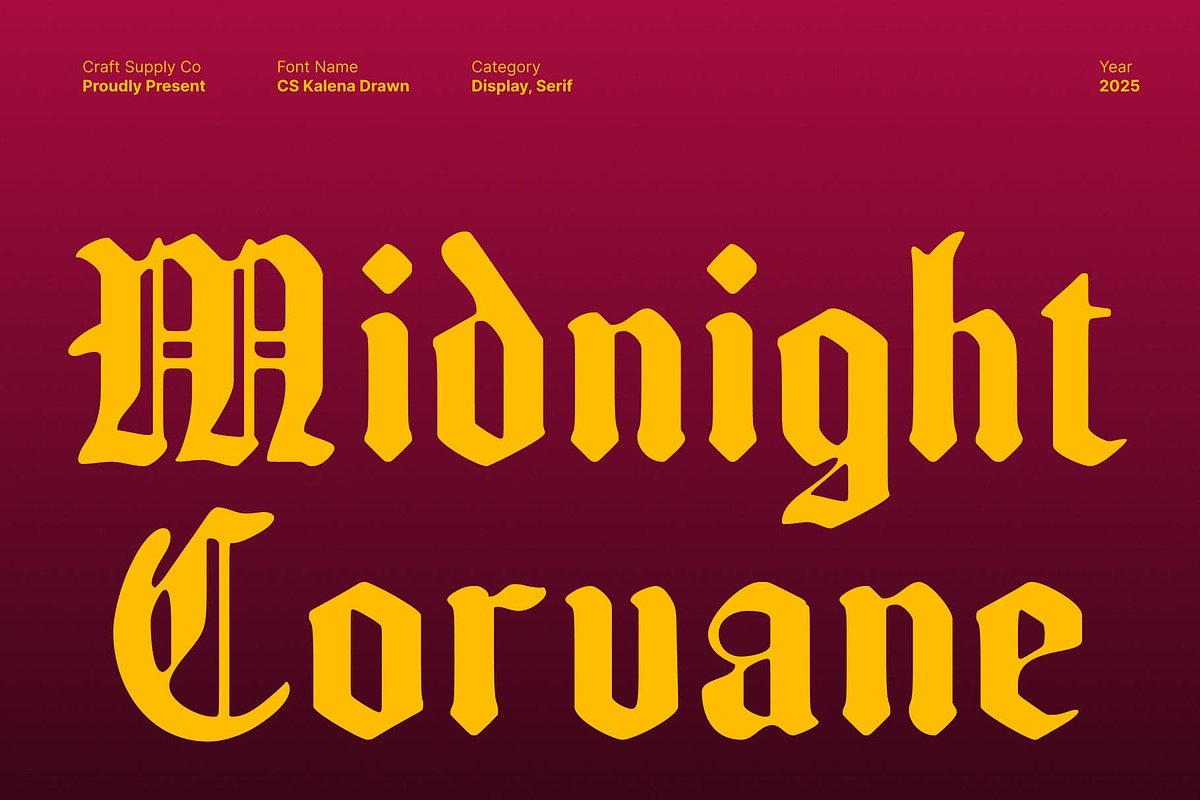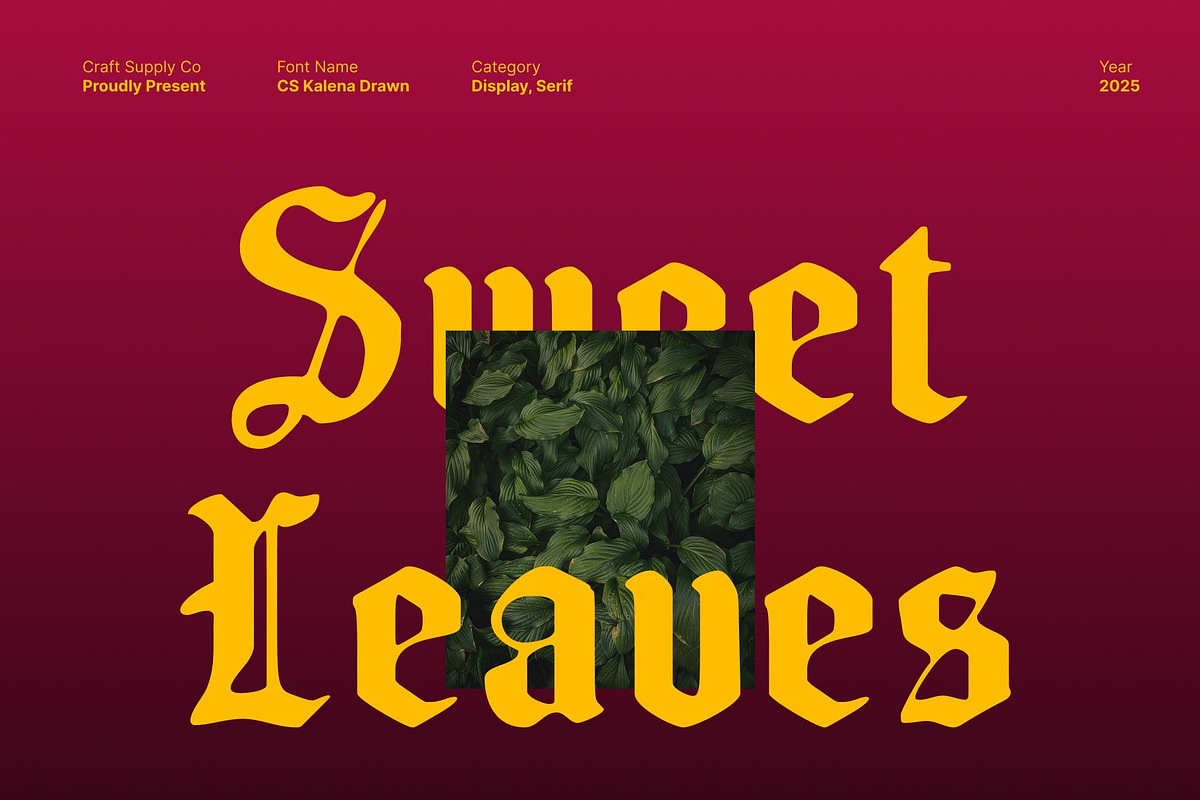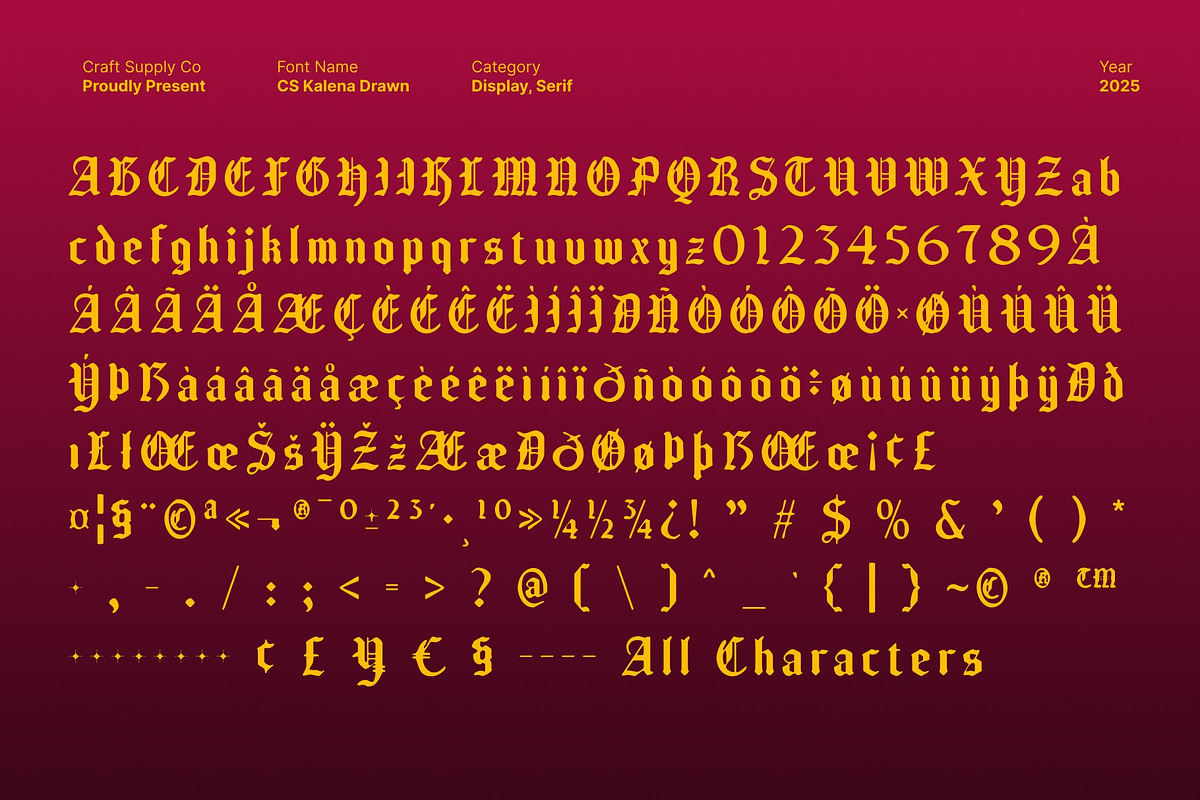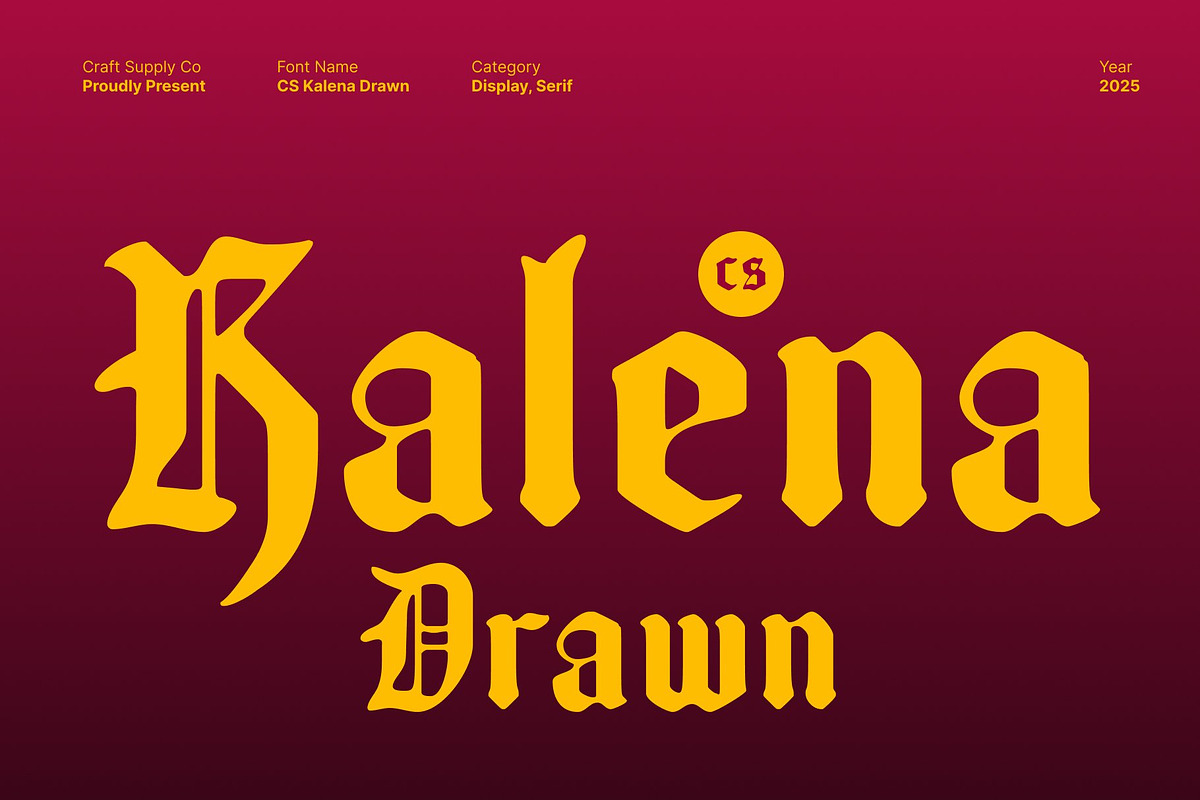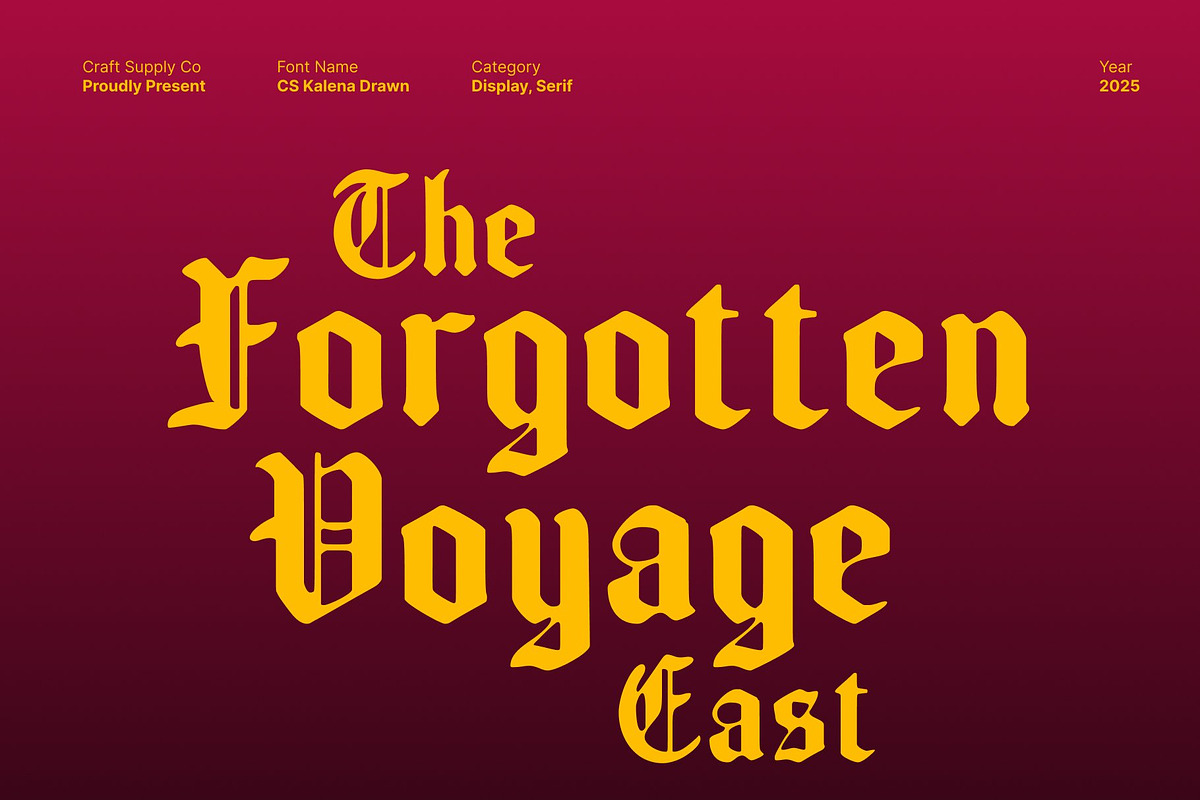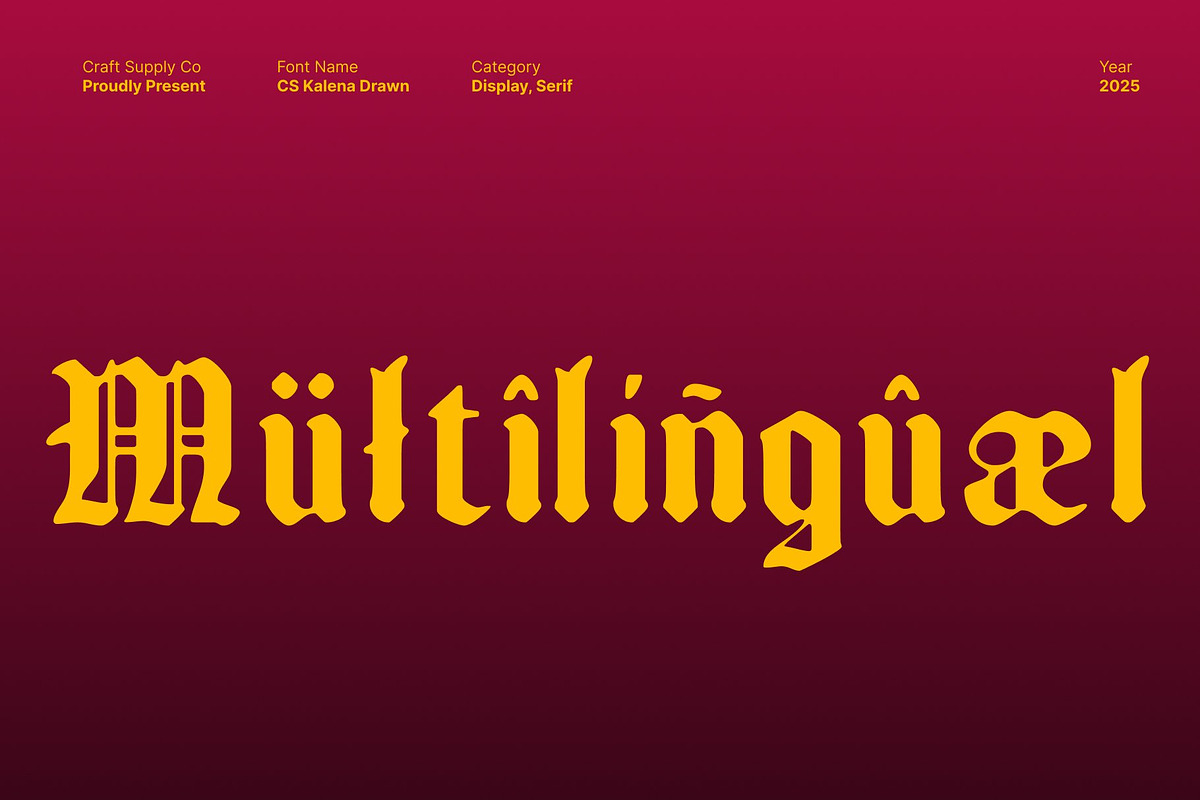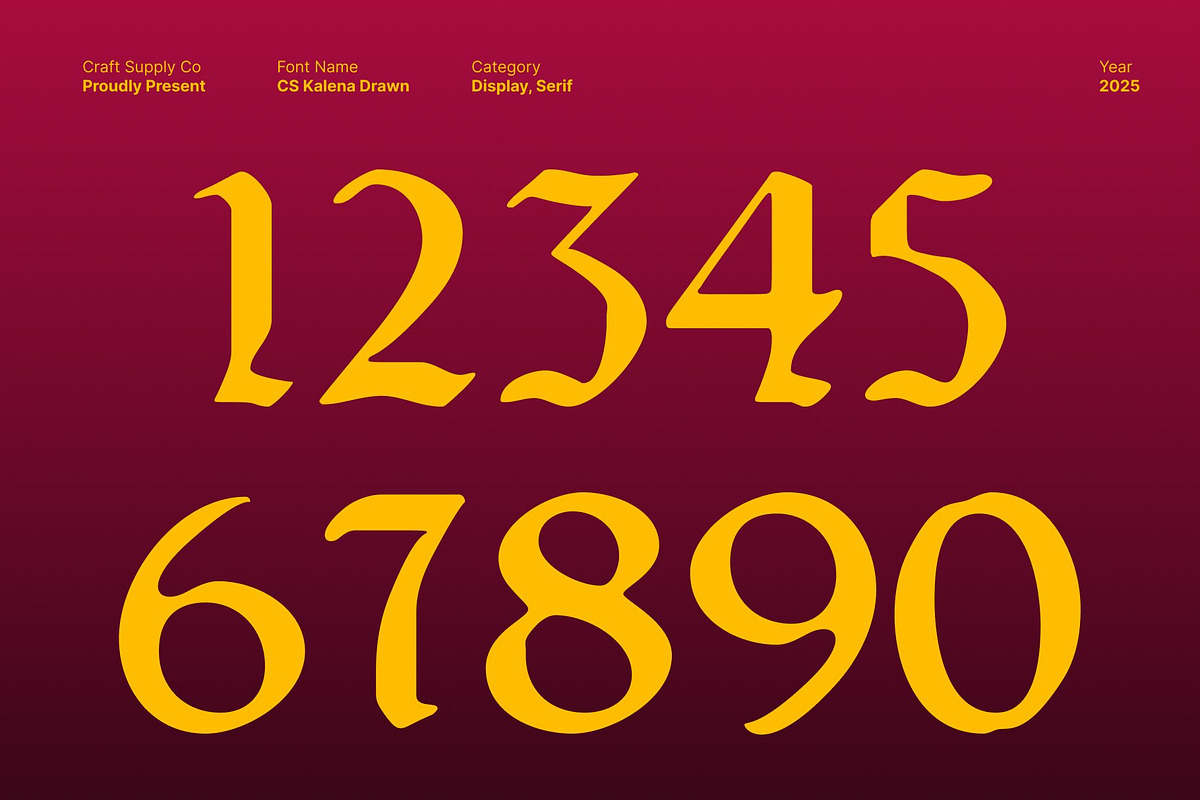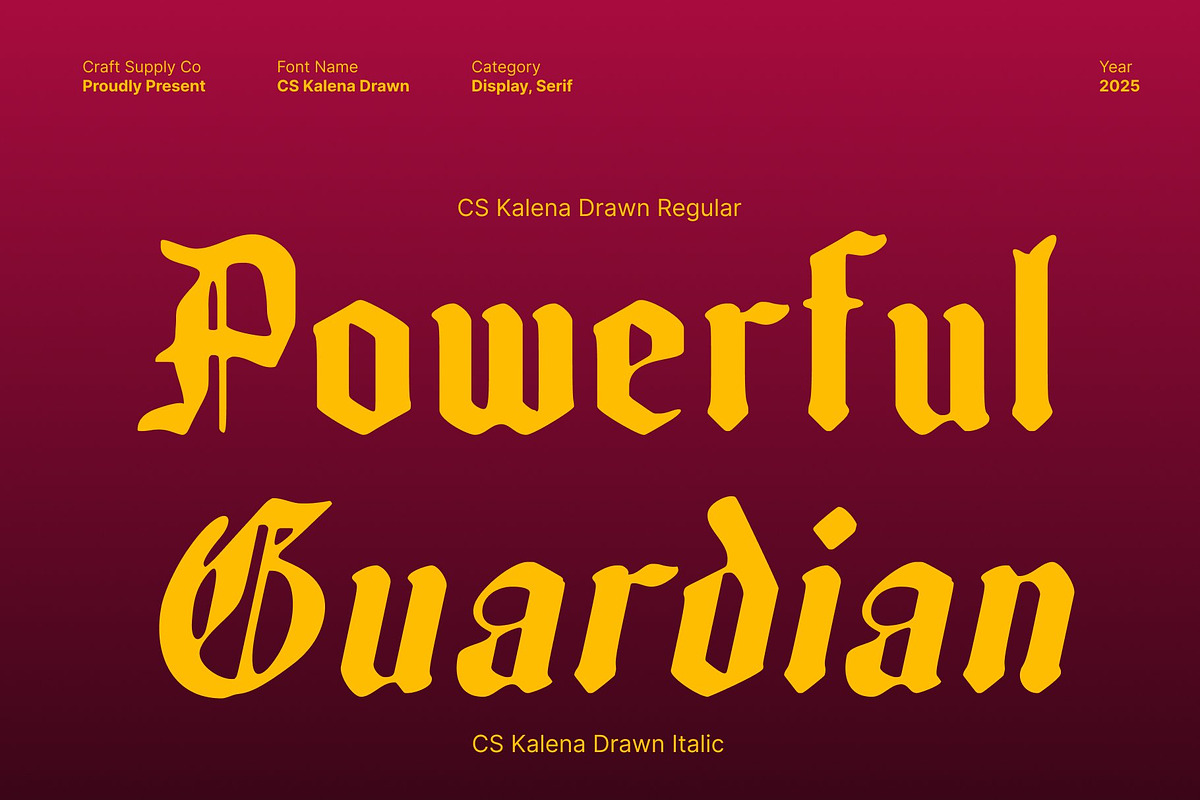
CS Kalena Drawn
CS Kalena Drawn – Dramatic Blackletter Display with Handmade Texture
Classic Blackletter Forms with Bold Expression This brings the timeless elegance of Blackletter typography into a bold display style. Its strong strokes, intricate shapes, and historic letter structures create an instantly recognizable Gothic presence. Each character embodies tradition and authority, making the font a powerful choice for dramatic and expressive design work.
Hand-Drawn Texture for Artistic Depth What sets this font apart is its handcrafted drawn effect. Subtle irregularities and textured lines give each letter a unique, handmade quality that softens its sharp structure. This artistic finish adds warmth and character, transforming traditional Blackletter forms into something more dynamic, textured, and visually engaging.
Ideal for Powerful Posters and Expressive Titles From bold posters to striking book titles, this font excels in layouts that demand attention. Its dramatic silhouette captures the viewer immediately, while the drawn texture infuses each word with emotional depth. The blend of old-world forms and artistic roughness makes it perfect for projects seeking a classic yet unconventional tone.
Unique Choice for Branding and Creative Projects For visual identities and creative branding, this font offers a distinguished and memorable look. Whether used for logos, themed merchandise, or atmospheric promotional designs, it delivers a rich combination of heritage and artistry. Its textured Blackletter style ensures every composition feels crafted, unique, and full of personality.